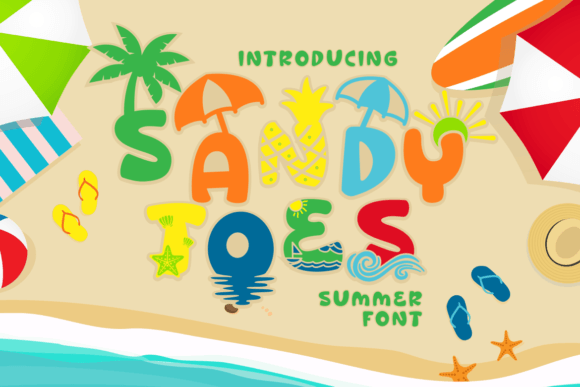
Sandy Toes Font: A Delightful Typeface for Summer Designs
Are you looking for a font that captures the essence of summer and adds a playful touch to your designs? Look no further than Sandy Toes Font, a quirky summer theme font that is sure to transport you to the sunny shores of the season. With its bold, rounded, and playful letterforms, Sandy Toes is the perfect choice for a wide range of projects, from children’s themes to crafting projects, and designs that radiate fun and playfulness.
What is Sandy Toes Font?
Sandy Toes Font is a delightful typeface that features playful, rounded, and bold letterforms that capture the essence of fun and the warmth of the summer season. It’s a versatile font that can be used on its own or combined with any of its eight vibrant variations, making it perfect for a wide range of design projects.
Key Features of Sandy Toes Font
- Playful and Rounded Letterforms: Sandy Toes features bold, rounded, and playful letterforms that capture the essence of fun and the warmth of the summer season.
- Eight Vibrant Variations: The font comes with eight distinctive variations inspired by summer, including palms, suns, beaches, pineapples, waves, starfish, and more.
- Versatile: Sandy Toes is a versatile font that can be used on its own or combined with any of its eight vibrant variations.
Uses of Sandy Toes Font
Sandy Toes Font is perfect for a wide range of projects, including:
- Children’s Themes: The font’s playful and fun design makes it perfect for children’s themes, such as children’s books, magazines, and educational materials.
- Crafting Projects: Sandy Toes is a great choice for crafting projects, such as DIY tutorials, crafting blogs, and handmade product labels.
- Logos and Branding: The font’s bold and playful design makes it perfect for logos and branding projects, such as summer-themed businesses, beachwear brands, and outdoor gear companies.
- Invitations and Packaging: Sandy Toes is a great choice for invitations, packaging, and posters for summer-themed events, such as beach parties, summer festivals, and outdoor concerts.
- Greeting Cards and Stickers: The font’s playful design makes it perfect for greeting cards, stickers, and other stationery items, such as summer-themed greeting cards and beach-themed stickers.
Benefits of Using Sandy Toes Font
Using Sandy Toes Font in your designs offers several benefits, including:
- Unique and Playful Design: The font’s playful and fun design will add a unique touch to your designs and make them stand out from the crowd.
- Versatility: Sandy Toes is a versatile font that can be used in a wide range of design projects, from children’s themes to logos and branding.
- Easy to Read: The font’s bold and rounded letterforms make it easy to read, even at small sizes.
- Customizable: Sandy Toes comes with eight vibrant variations, allowing you to customize your designs and match your brand’s style.
Tips for Using Sandy Toes Font
Here are some tips for using Sandy Toes Font in your designs:
- Use it with Summer-themed Elements: Pair Sandy Toes with summer-themed elements, such as palm trees, suns, and beach balls, to create a cohesive and playful design.
- Experiment with Colors: The font’s bold and playful design makes it perfect for bright and bold colors, such as pink, blue, and yellow.
- Use it for Headings and Titles: Sandy Toes is perfect for headings and titles, such as blog post titles, section headings, and poster titles.
- Combine it with Other Fonts: The font’s versatility makes it perfect for combining with other fonts, such as serif fonts, to create a unique and visually appealing design.
Sandy Toes Font is a delightful typeface that captures the essence of summer and adds a playful touch to your designs. With its bold, rounded, and playful letterforms, eight vibrant variations, and versatility, Sandy Toes is perfect for a wide range of design projects, from children’s themes to logos and branding. Whether you’re designing for summer or just want to add a playful touch to your designs, Sandy Toes Font is a great choice.
- What is Sandy Toes Font? Sandy Toes Font is a quirky summer theme font that features playful, rounded, and bold letterforms.
- What are the key features of Sandy Toes Font? The font features eight vibrant variations, playful and rounded letterforms, and versatility.
- What are the uses of Sandy Toes Font? Sandy Toes is perfect for children’s themes, crafting projects, logos and branding, invitations and packaging, and greeting cards and stickers.
- What are the benefits of using Sandy Toes Font? The font offers a unique and playful design, versatility, easy readability, and customizability.